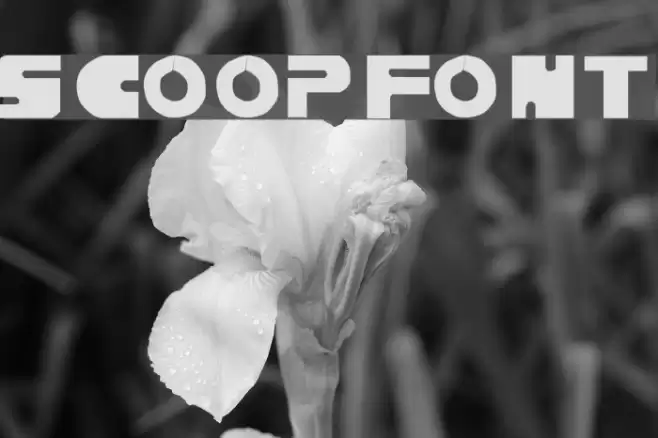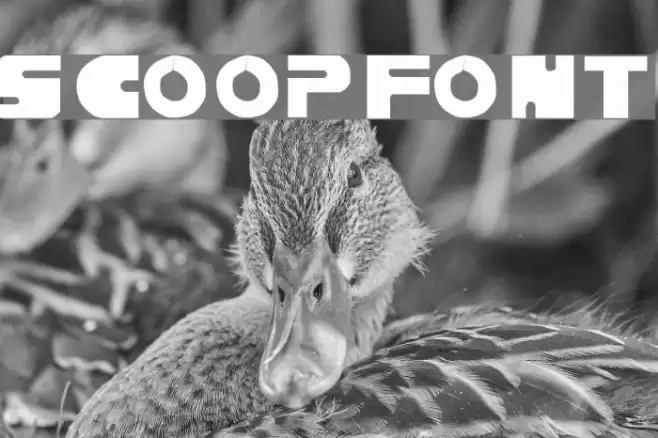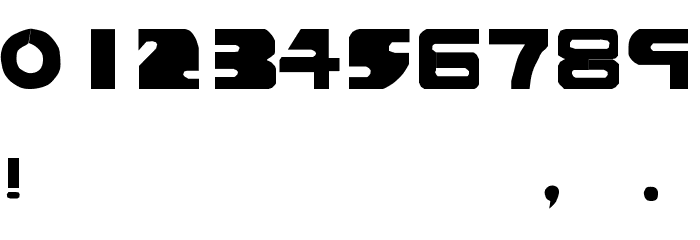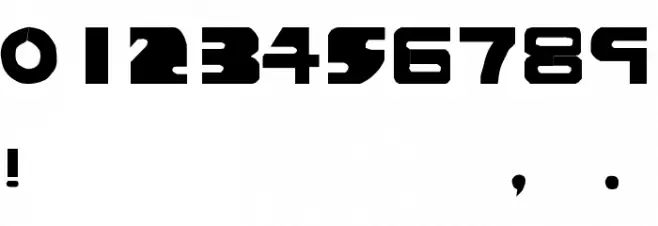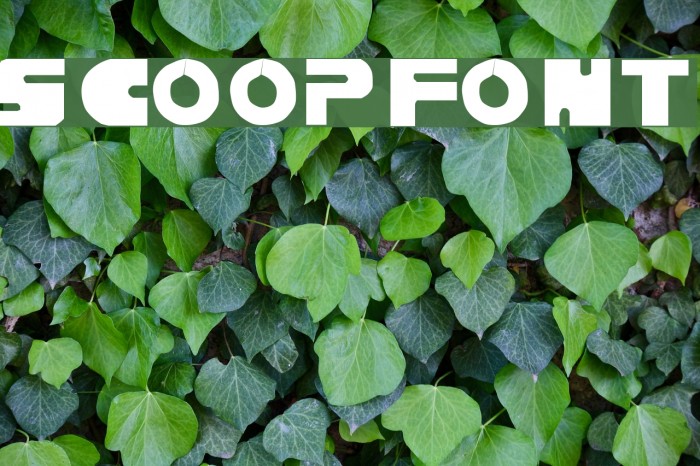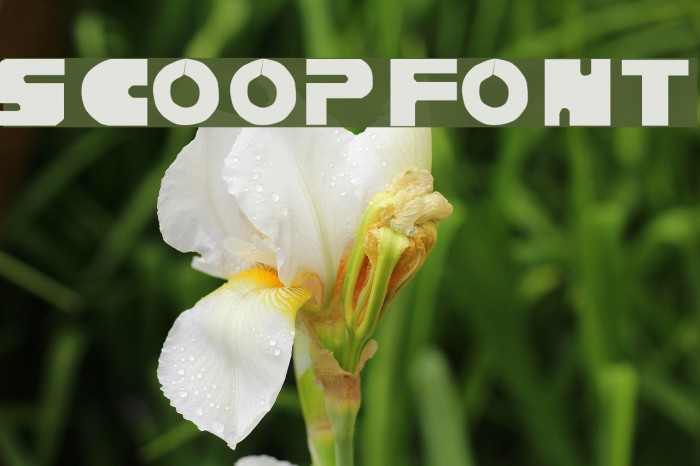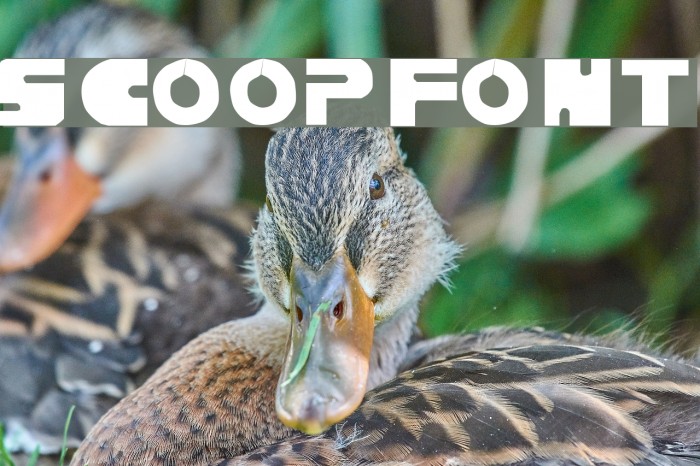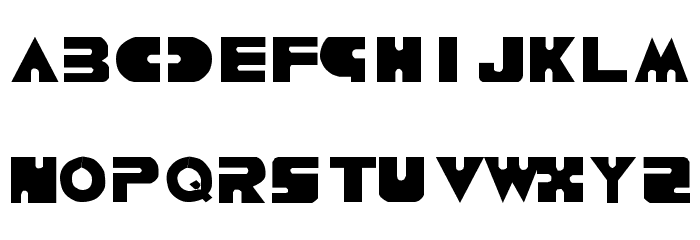
Scoop Font
Scoop Description
This font features a bold, geometric design with a futuristic flair. The characters are constructed with thick, solid strokes and sharp angles, creating a sense of strength and modernity. The uppercase letters are particularly striking, with unique cutouts and shapes that give them a distinctive look. The numerals and special characters maintain this bold style, ensuring consistency across all elements. The overall appearance is both eye-catching and assertive, making it suitable for projects that require a strong visual impact.
A bold, geometric font with a futuristic and modern design from Futuristic fonts.
- Proposed Projects: Ideal for branding, posters, video game titles, and sci-fi themed projects.